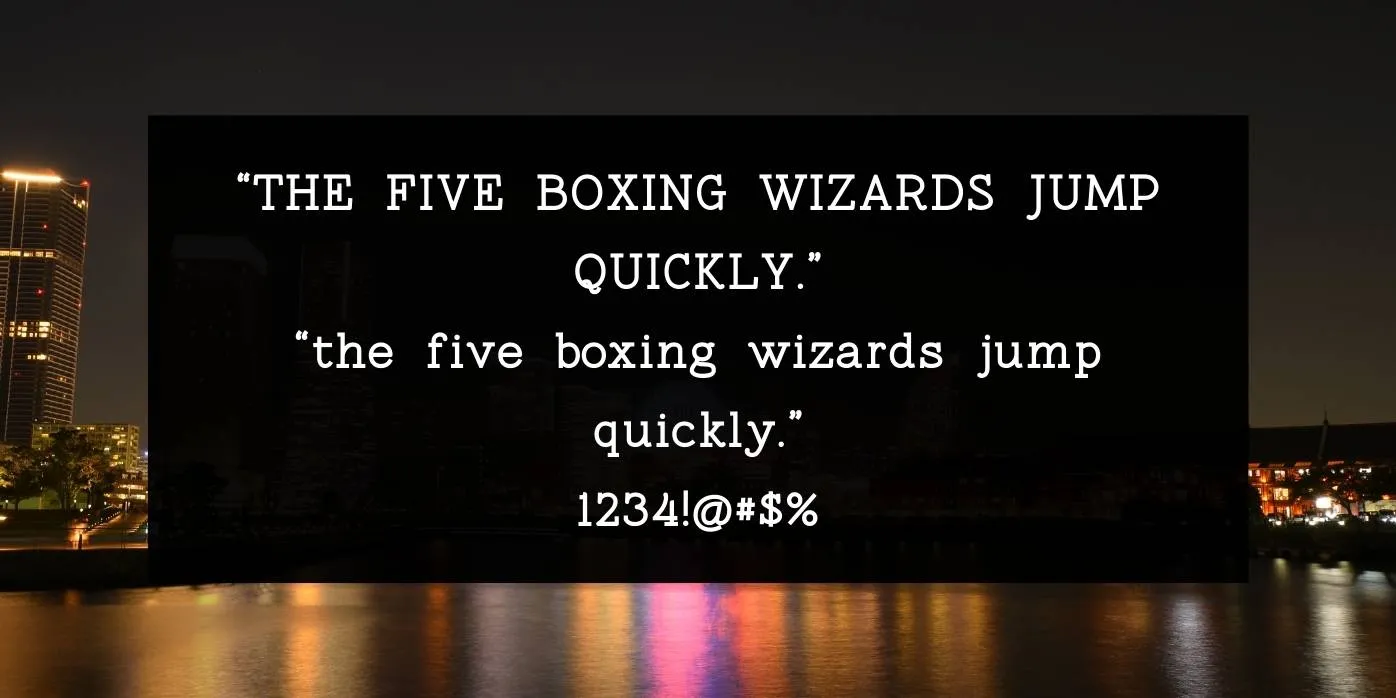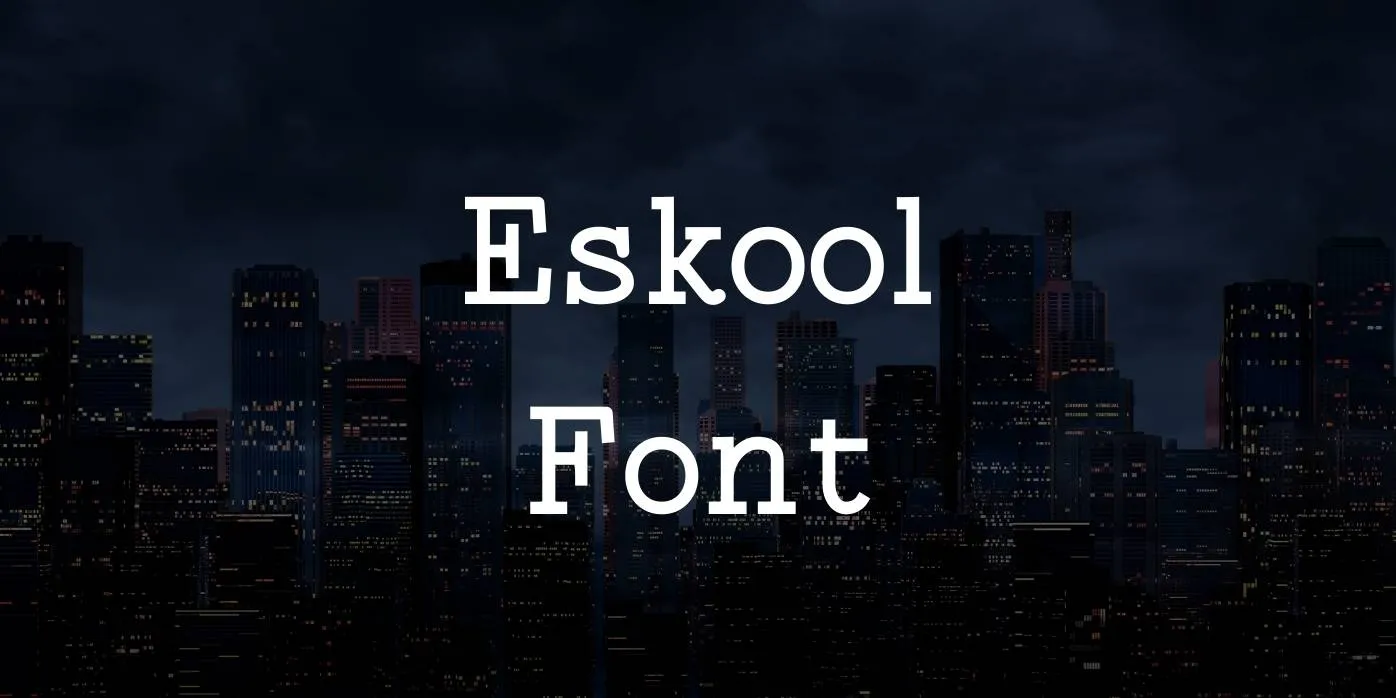
Eskool Font
Eskool Font is a very interesting and unique font it was inspired by the 90s time of school-going days. This font is designed by Saksham Verma. The font version is 1.000 its weight is normal, width is medium (normal). It consists of 109 characters and 110 glyphs.
This font contains small letters, capital letters, numbers punctuations, symbols, and special characters. It supports file format TTF (True Type Font). It also has the power to pair it with quick cut font to make your project more attractive. The most compatible font with it is serif font which gives it a very nice look.
You can be used or downloaded on many devices like Windows/PC. This Serif typeface is simple in look with a modern touch which makes it unique and decorative. Usage It is a very simple and beautiful font. It was created in the 90’s time in the school-going days.
This font is a very playful font that is attractive to kids and other people. It is very useful in making headlines and Sub-Headlines to attract people with its unique look. You can be used for making logos for different projects. This typeface is the perfect combination of different weights and outlined fonts which can give a very modern look to your project This font can be used for making branding projects and for magazines.
This is a very interesting and unique font it was inspired by the ’90s time of school-going days. This font was designed by Saksham Verma. Is Eskool a good font to use? Yes, It is a very interesting font along with large text It can also be used for small text.
It is also suitable for making headlines and sub-headlines.